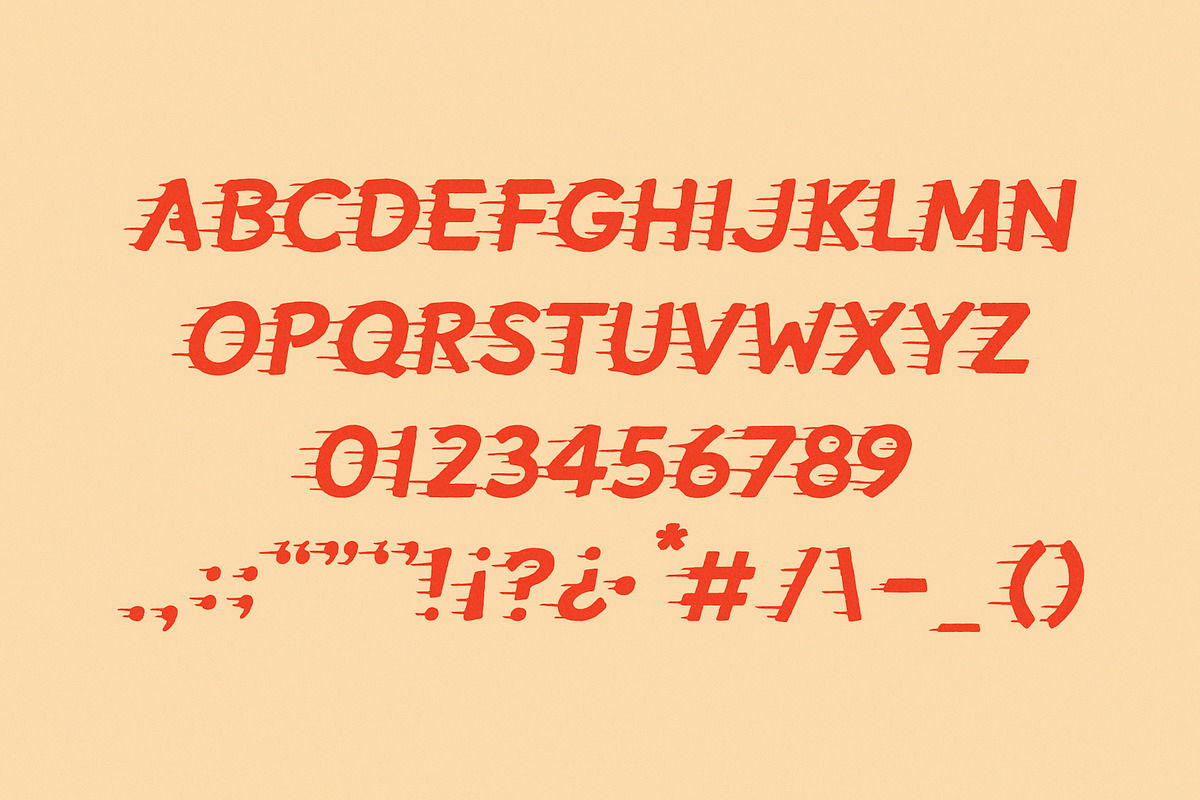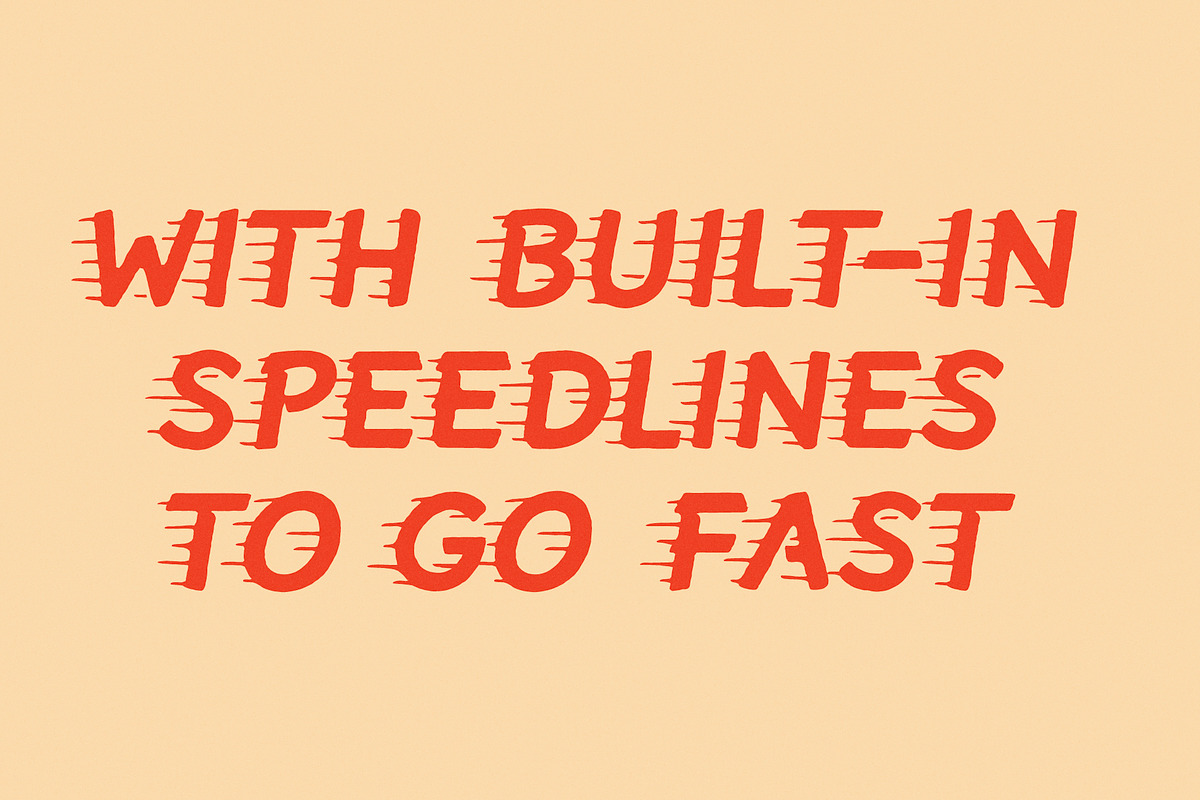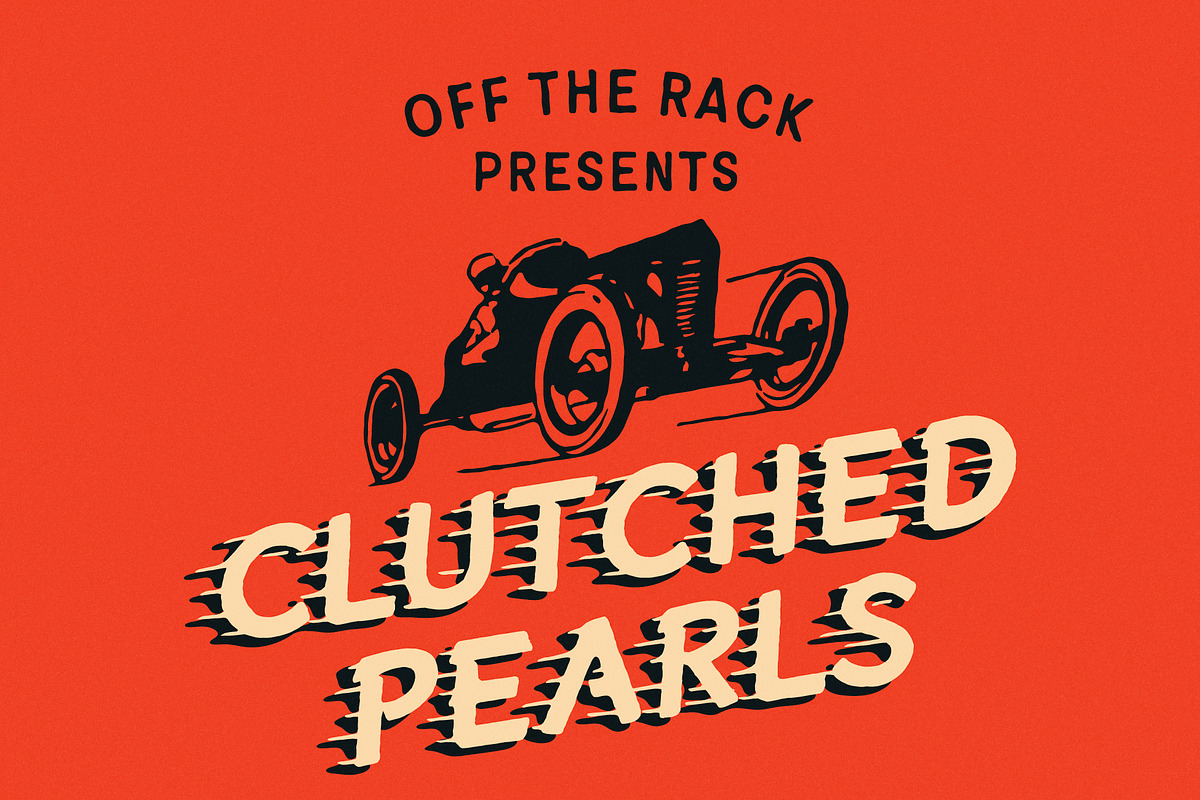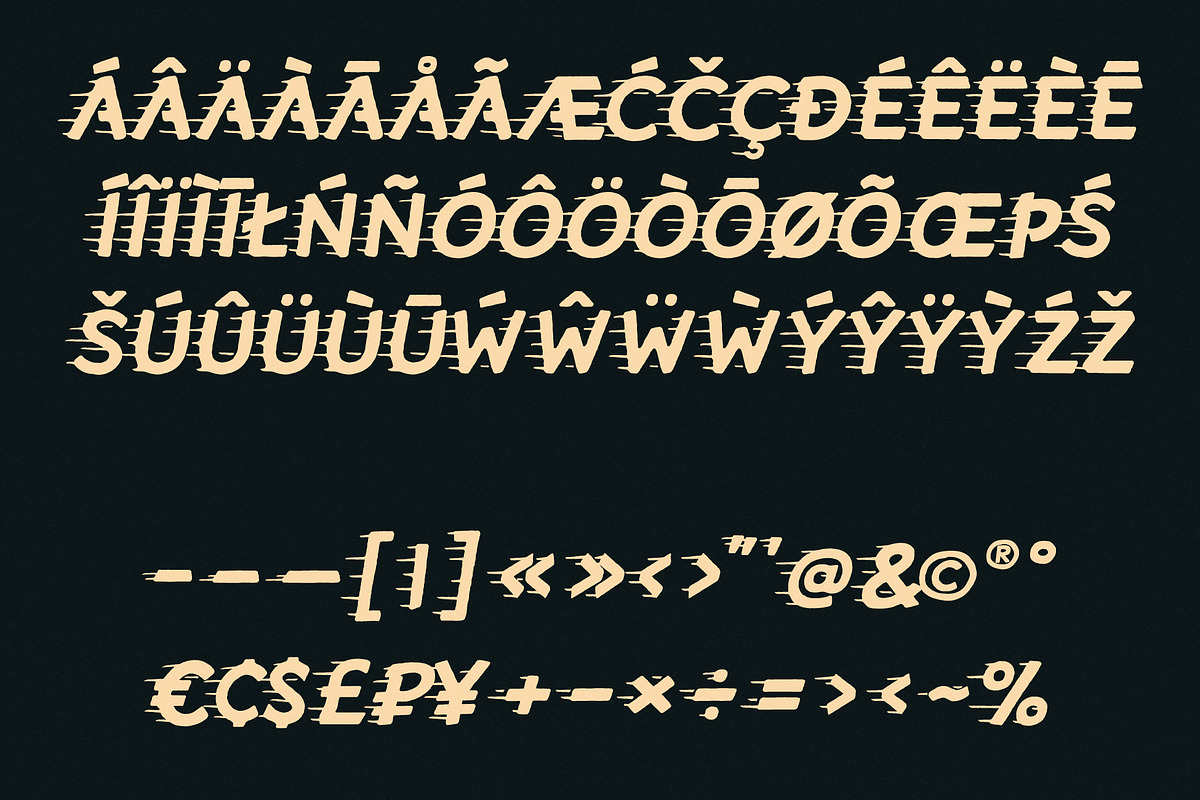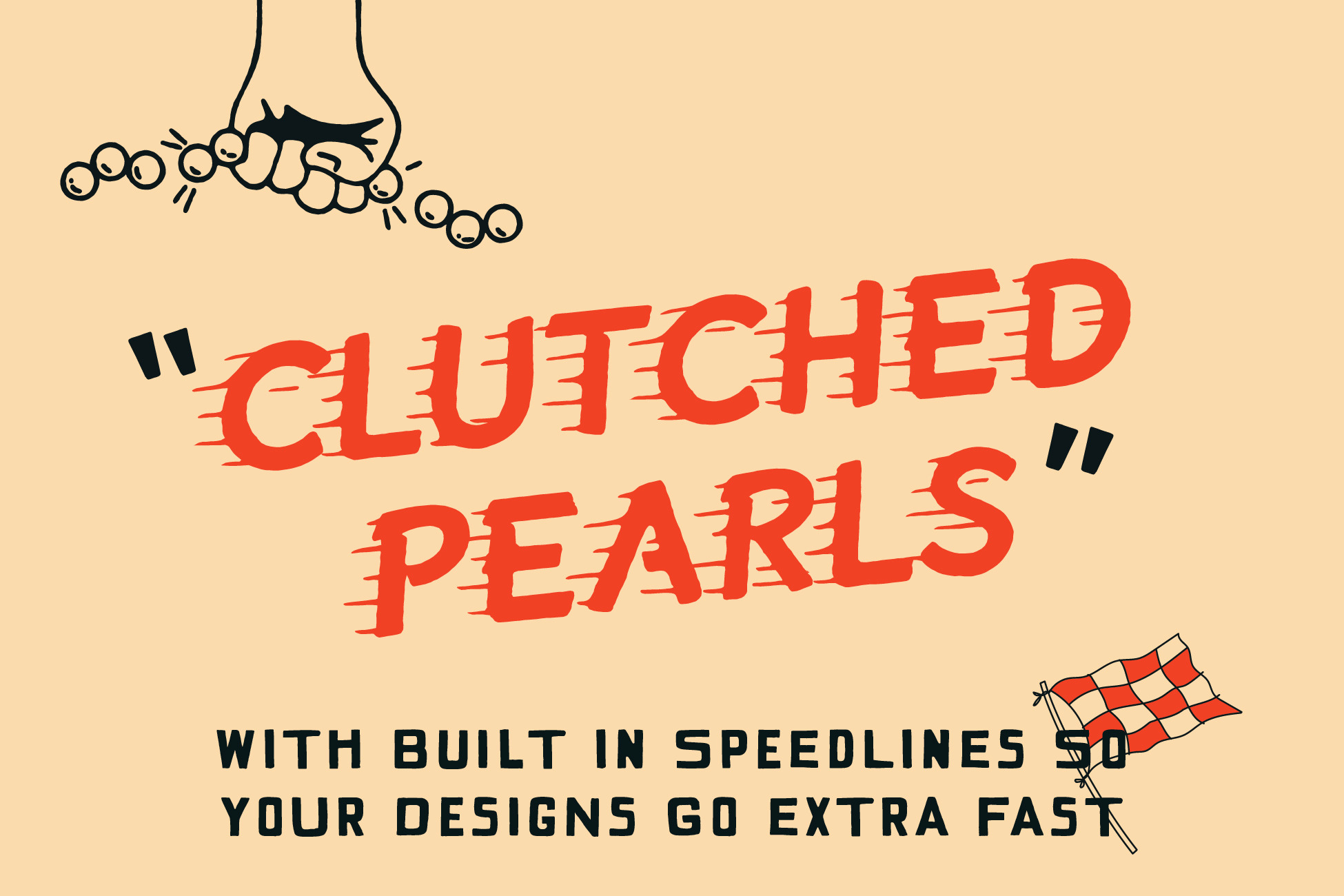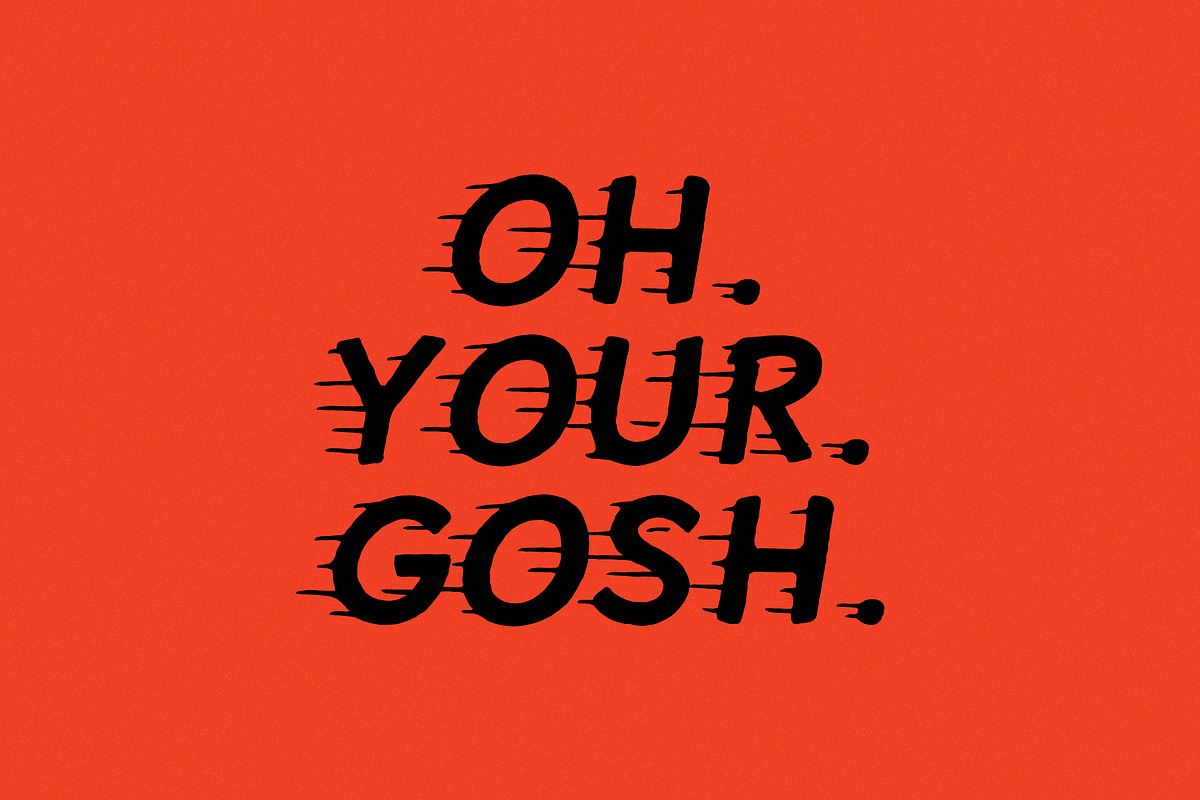
Clutched Pearls | Hand Drawn Font
Imagine:
Your gran speeding past on the back of a motorbike, leather jacket slipping from her shoulders; one hand holding onto the boy toy in front of her, the other clutching her pearls tight to her chest.
I can't guarantee you that feeling if you purchase Clutched Pearls, but I can guarantee it will make your designs 1,000,000 times cooler (as if they're not cool enough already) 😎